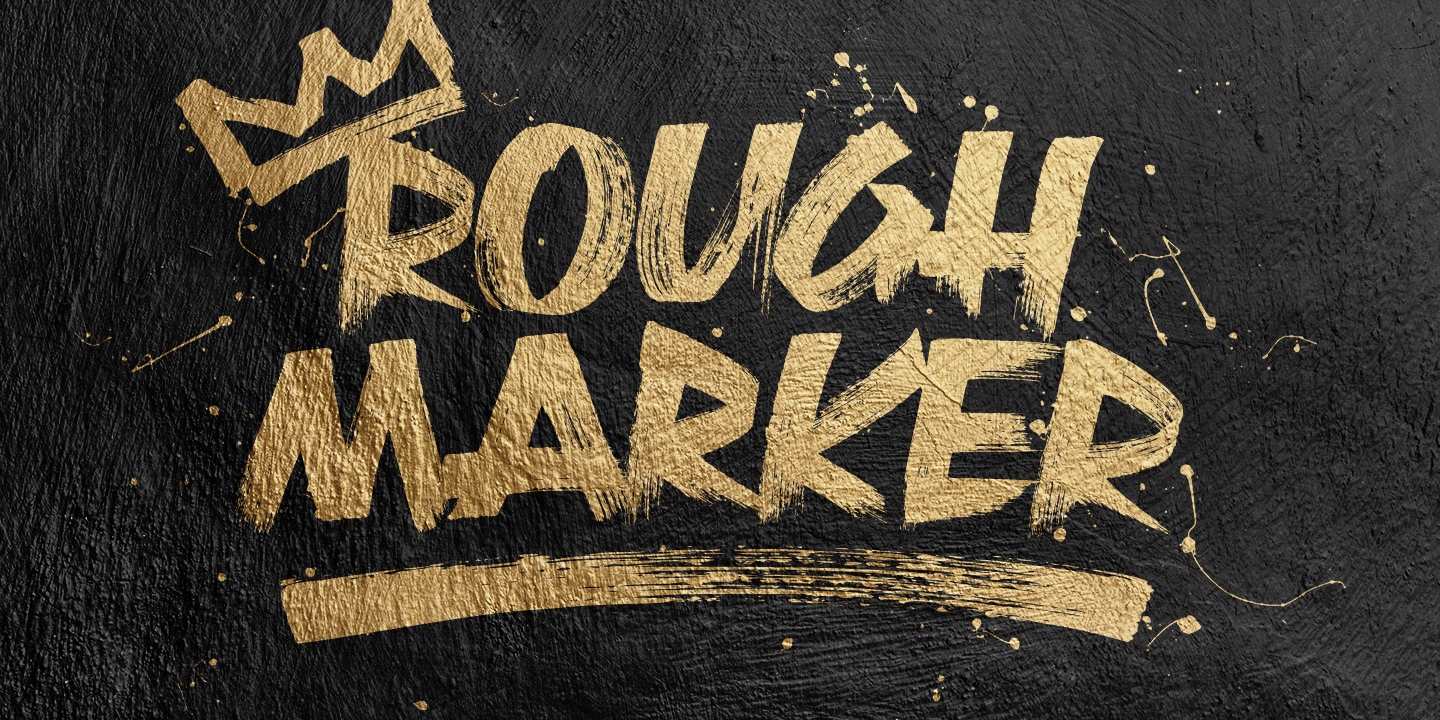
Rough Marker Font is perfect for creative projects including poster designs, logo creation, branding materials, social media graphics, greeting cards, book covers, artistic headlines, and handwritten-style advertisements. This versatile typeface brings an authentic hand-drawn aesthetic to any design project.
What makes Rough Marker Font exciting is its organic, imperfect texture that mimics real marker strokes on paper. The slightly rough edges and varying line weights create a genuine handcrafted appearance that stands out in today's digital world. This font captures the spontaneous energy of street art and casual sketching, making it ideal for projects that need personality and character.
The Rough Marker Font family typically includes regular weight with uppercase and lowercase letters, numbers, punctuation marks, and special characters. Some versions may offer additional weights like bold or light variations, along with extended character sets for multilingual support.
Whether you're designing for urban brands, artistic portfolios, or casual marketing materials, Rough Marker Font Free Download delivers the authentic marker aesthetic that designers crave. Its imperfect beauty makes it perfect for projects requiring a human touch in an increasingly digital landscape. The font's versatility allows it to work equally well for large display text and smaller decorative elements, making it a valuable addition to any designer's toolkit for creating memorable, engaging visual content.